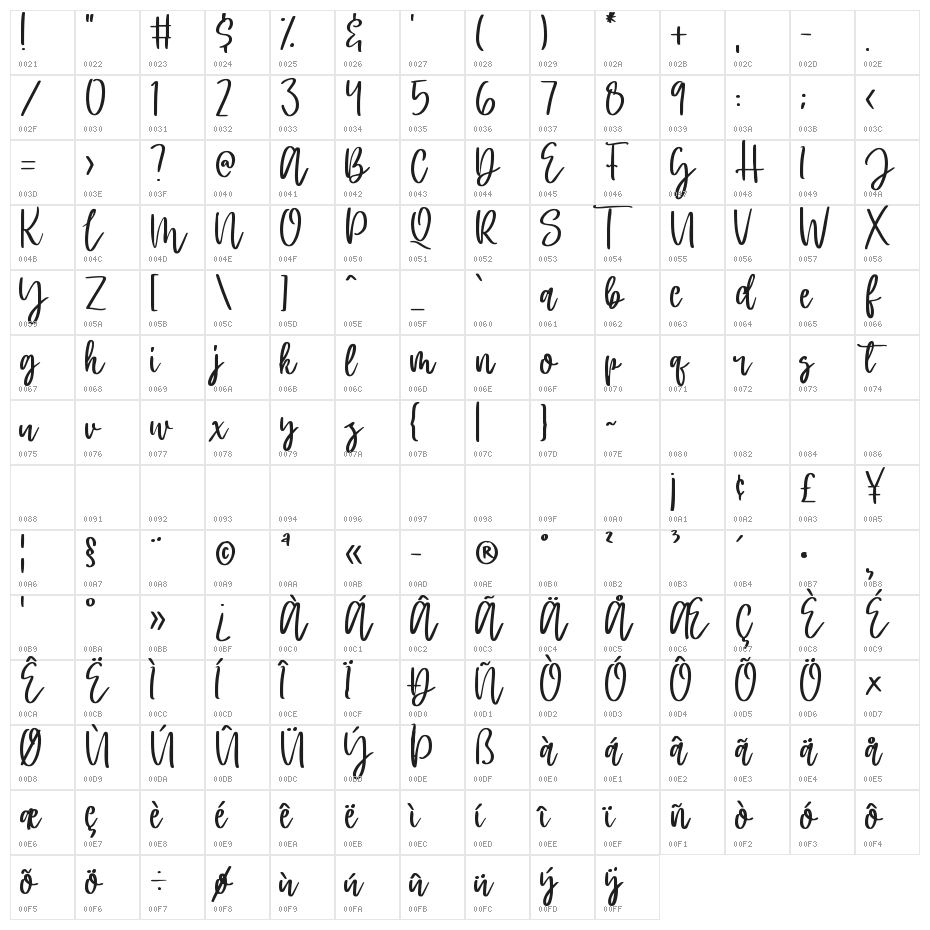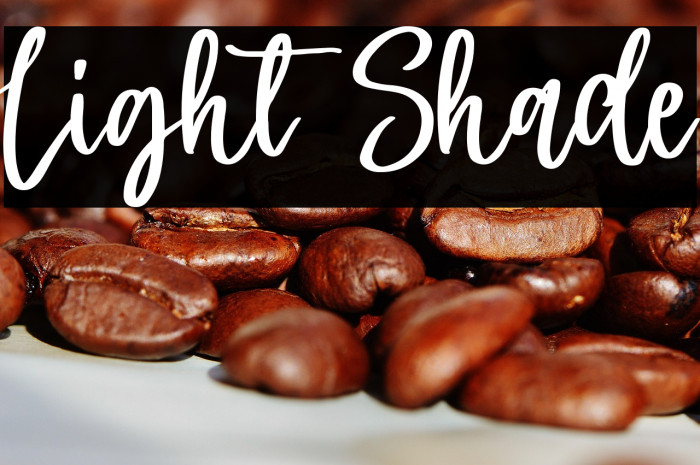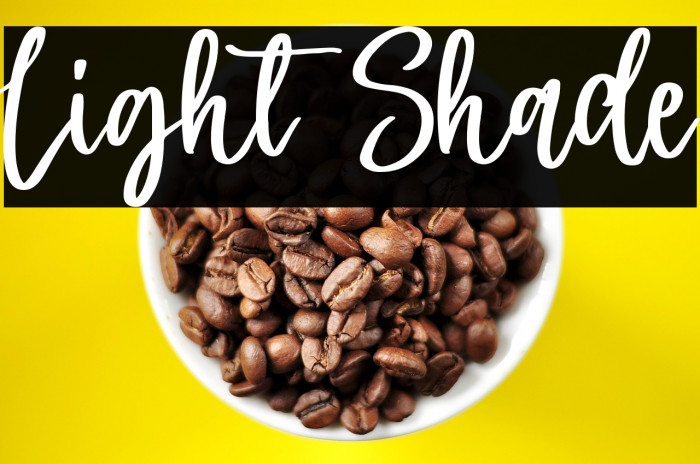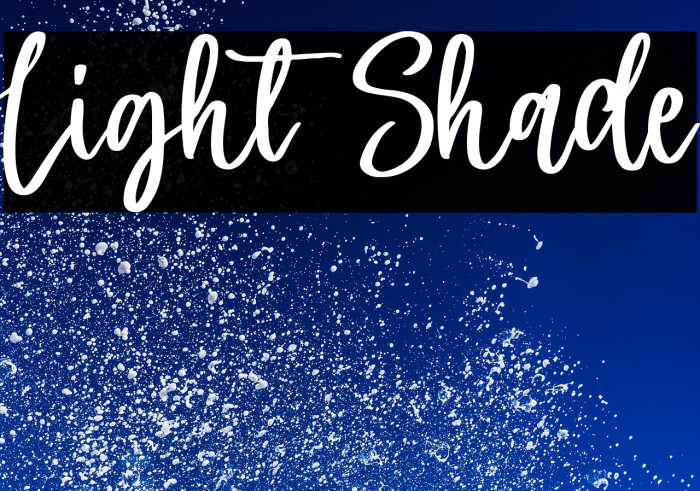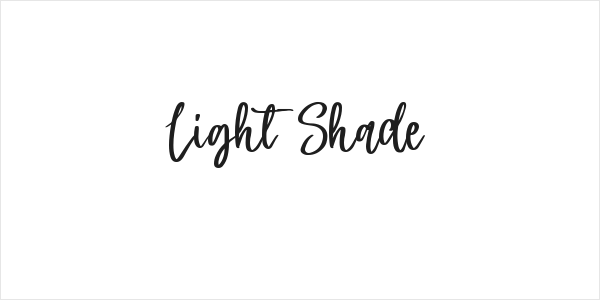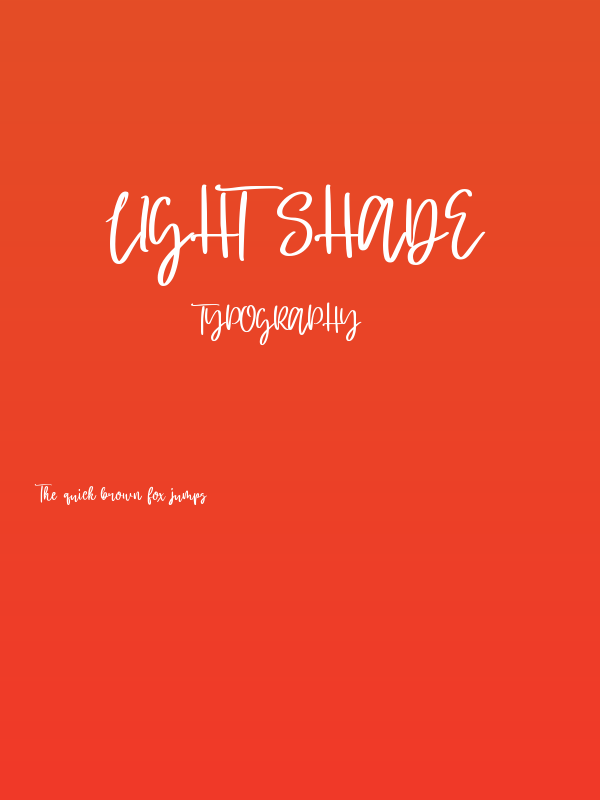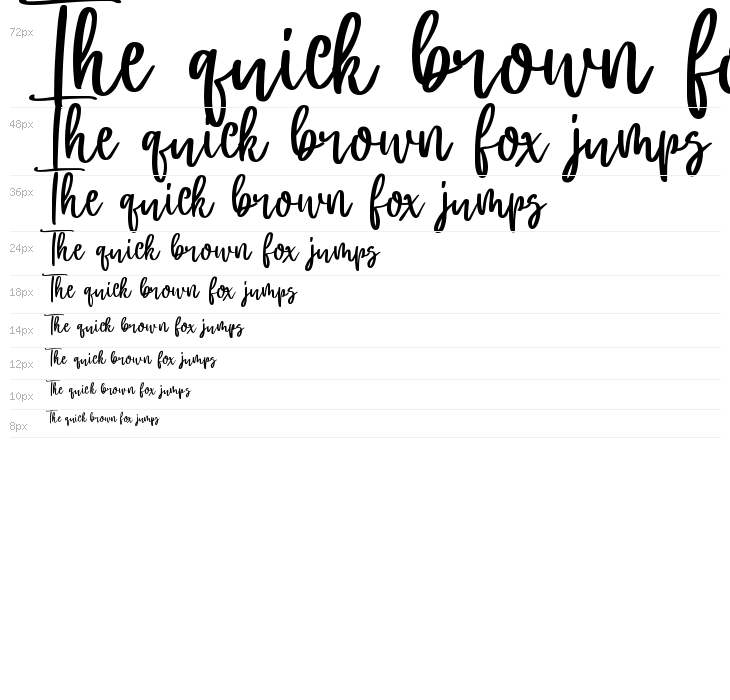
Light Shade Font
Light Shade Description
This font features a lively and dynamic handwritten style, characterized by its fluid and cursive letterforms. The strokes are smooth and connected, giving it a personal and informal feel. The uppercase letters are slightly more structured, while the lowercase letters exhibit a playful and flowing nature. The numbers and special characters maintain the same energetic style, ensuring consistency throughout. This font is perfect for projects that require a touch of personality and warmth, such as invitations, greeting cards, and personal branding.
| Use Case | Logos, Headlines, Creative projects |
| Proposed Projects | Ideal for invitations, greeting cards, personal branding, and creative projects. |